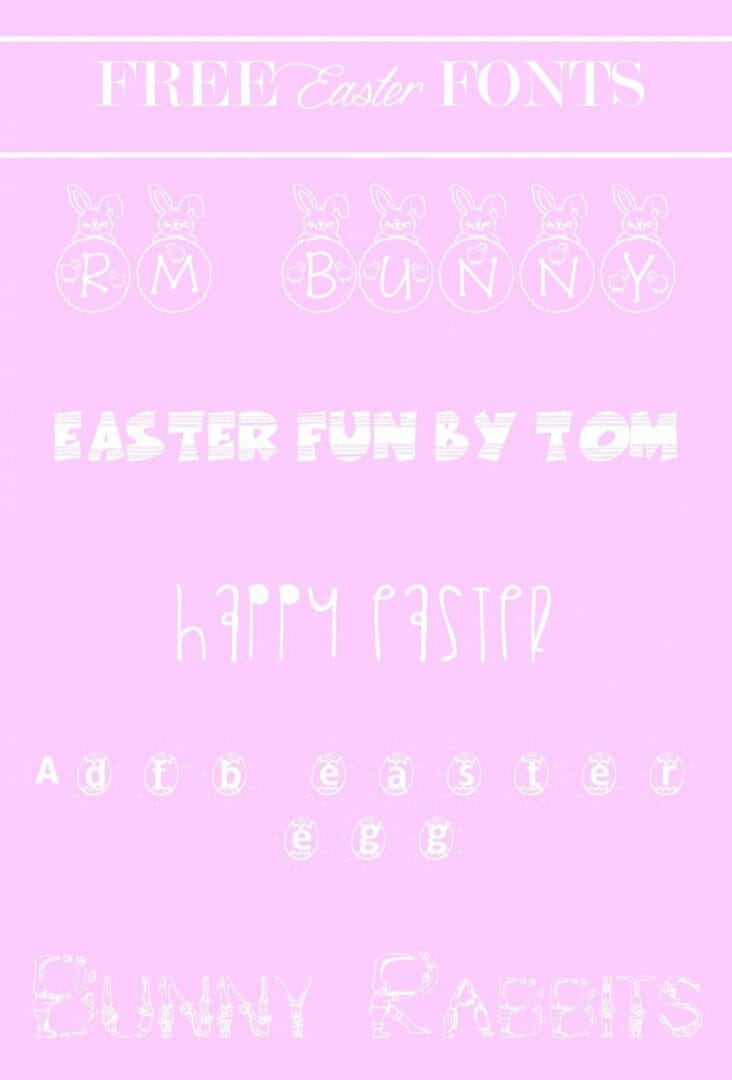
Awasome Easter Free Fonts 2022
Easter fun by tom font developer: Download free easter fonts and use them to decorate your mails, documents, cards and banners. Free easter park font it is a cute display font that is perfect for your easter moments such as greeting cards, invitations, covers, posters and etc.
The Main Designer Of This Typeface Is Southype.
When It Comes To Holiday Or Celebration Theme Design Projects, Picking The.
Whimsical Hand Drawn Bubble Letters Easter This One Is A Cozy Script That Will Bring Some Warmth And Love To Your Project.